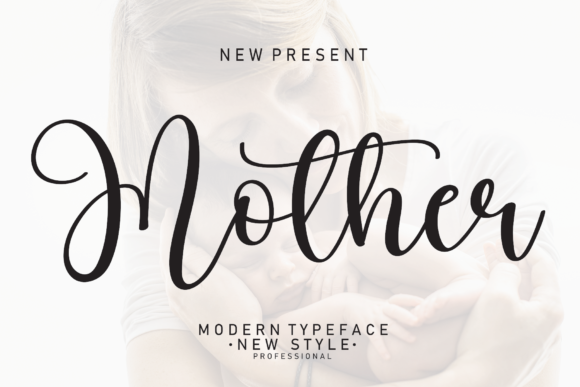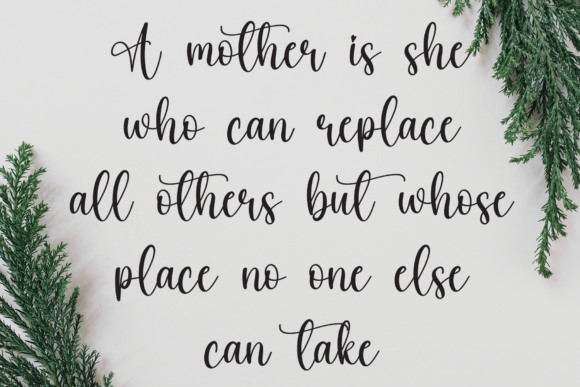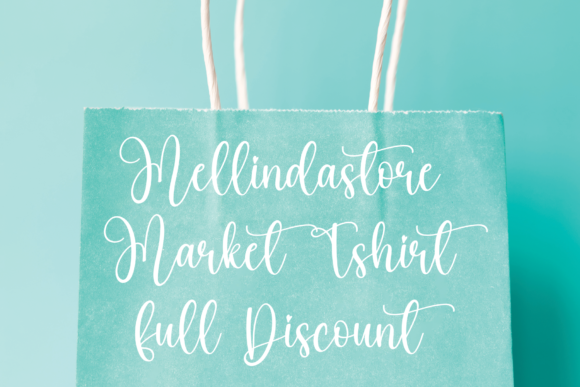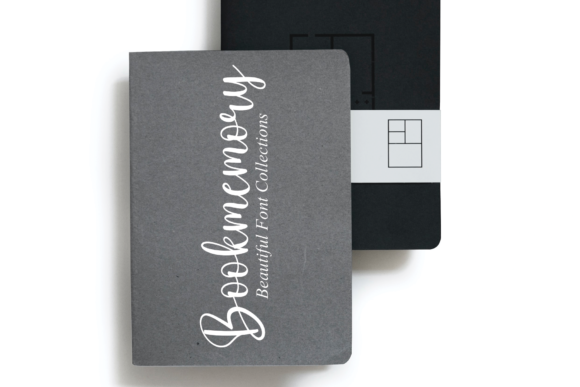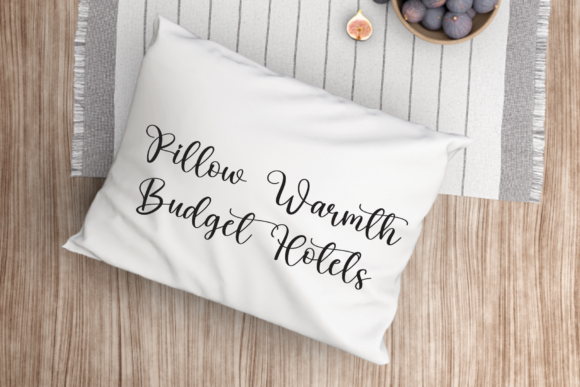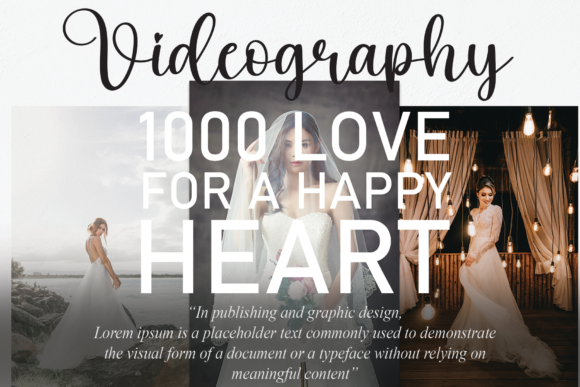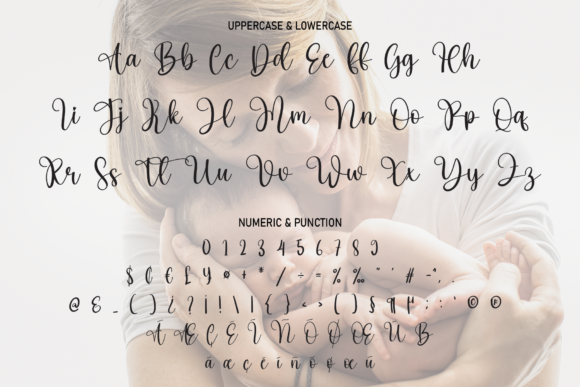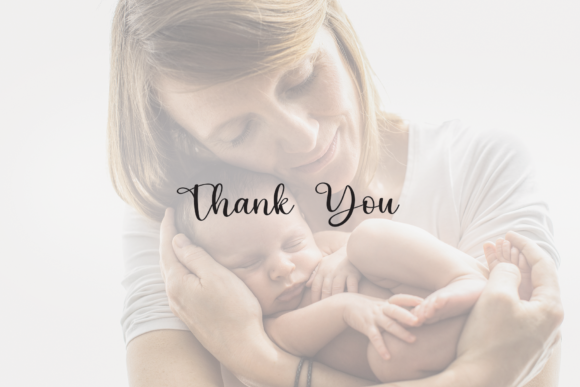
Mother Font
About Mother Font
Mother is a sweet and cursive handwritten font. This gentle font will look gorgeous on a variety of design ideas. It will add a joyful and romantic touch to each of your projects!